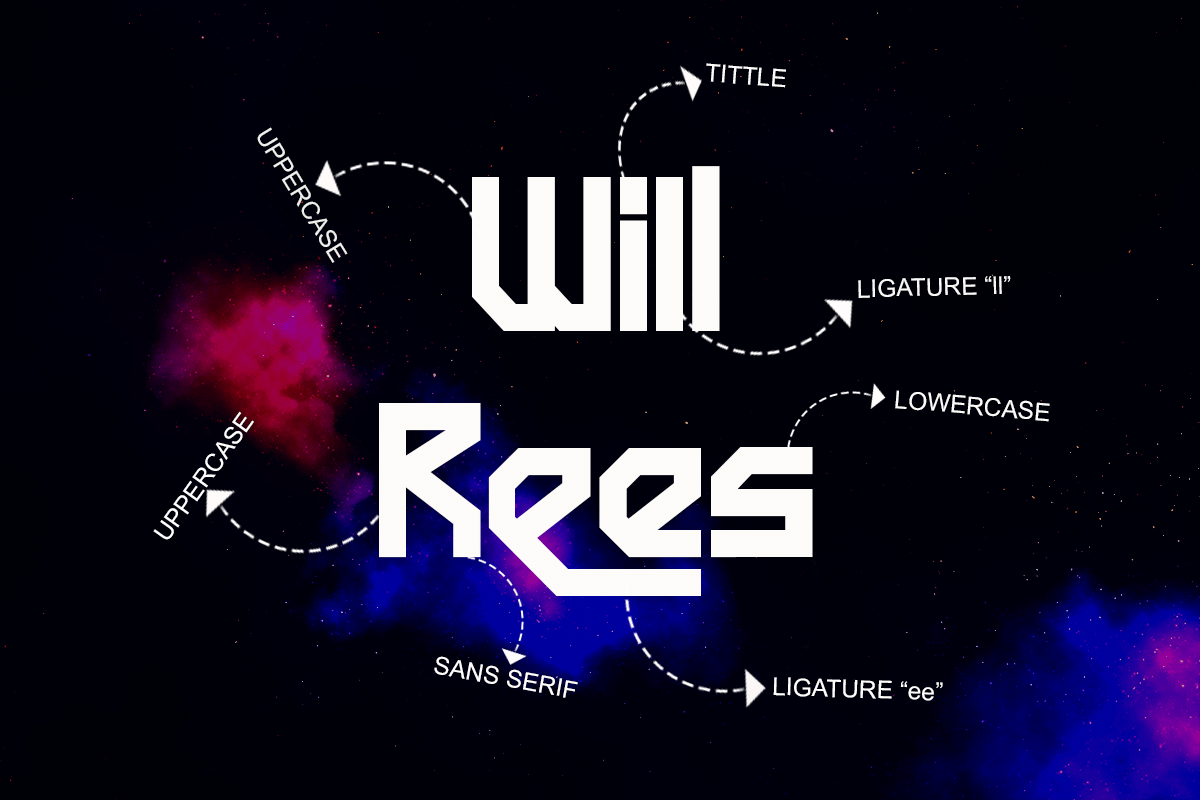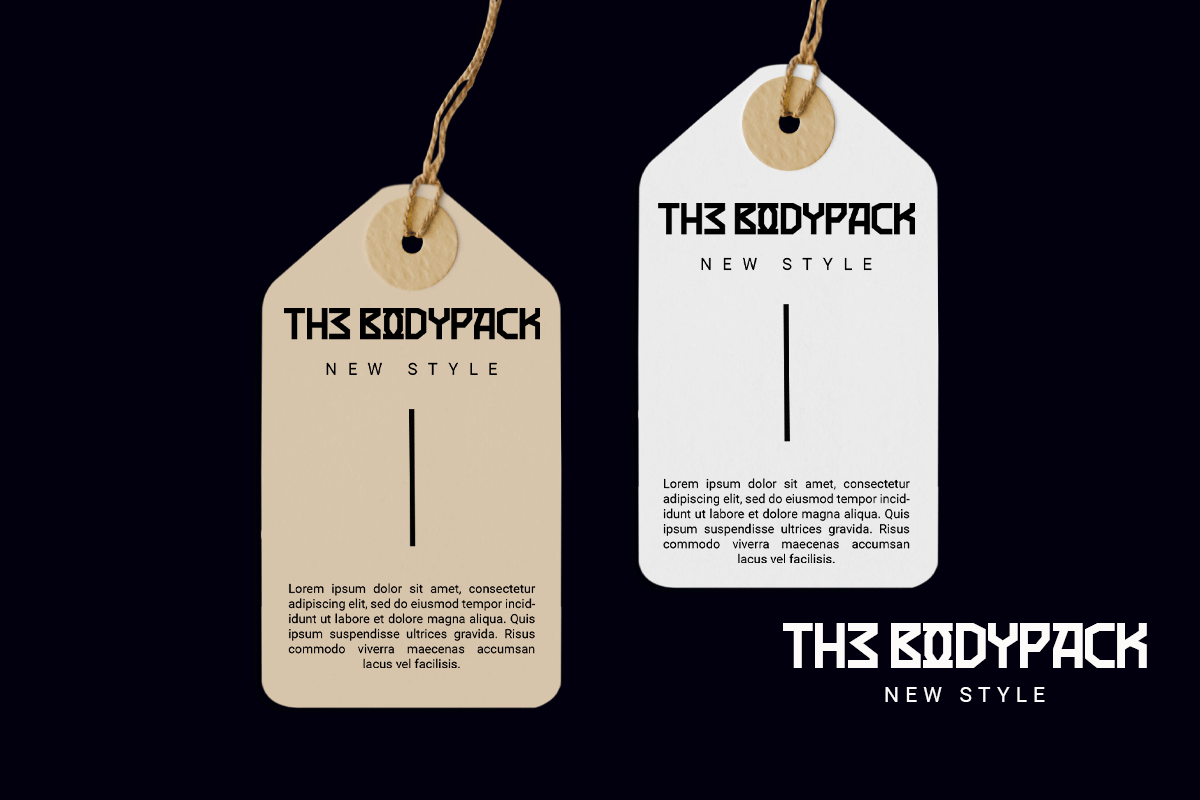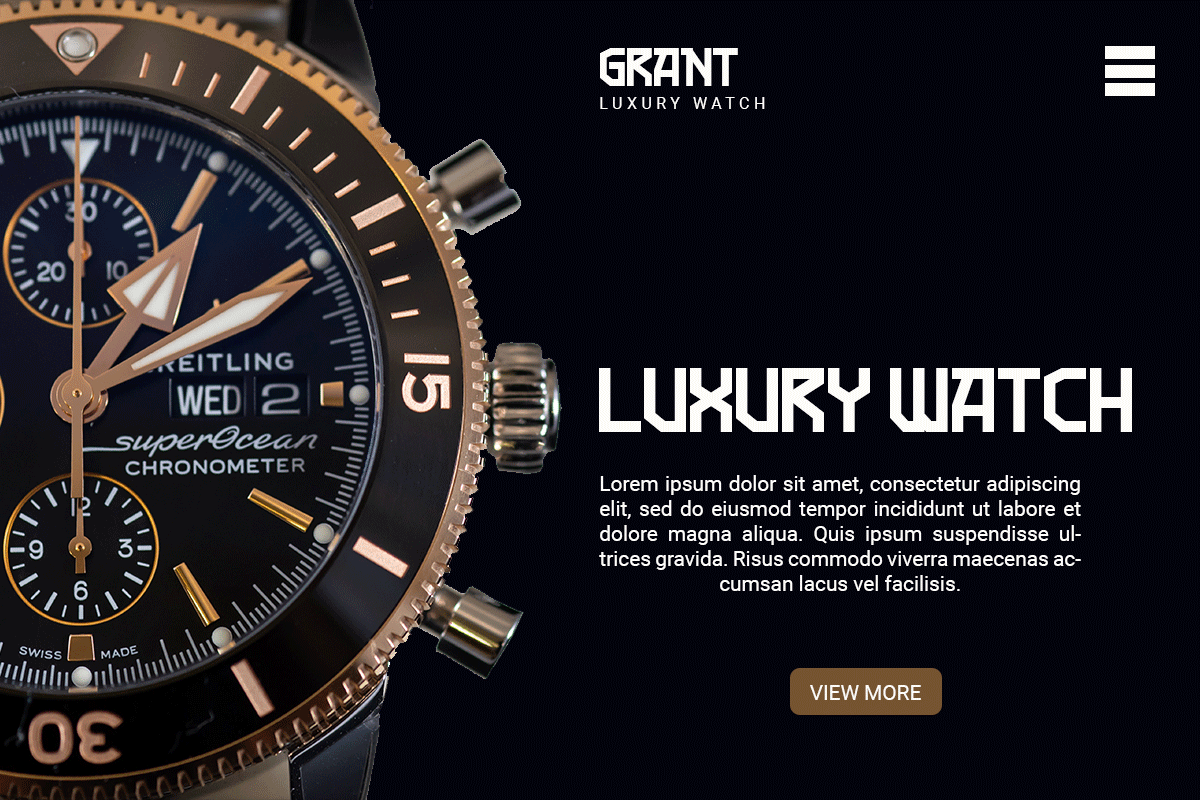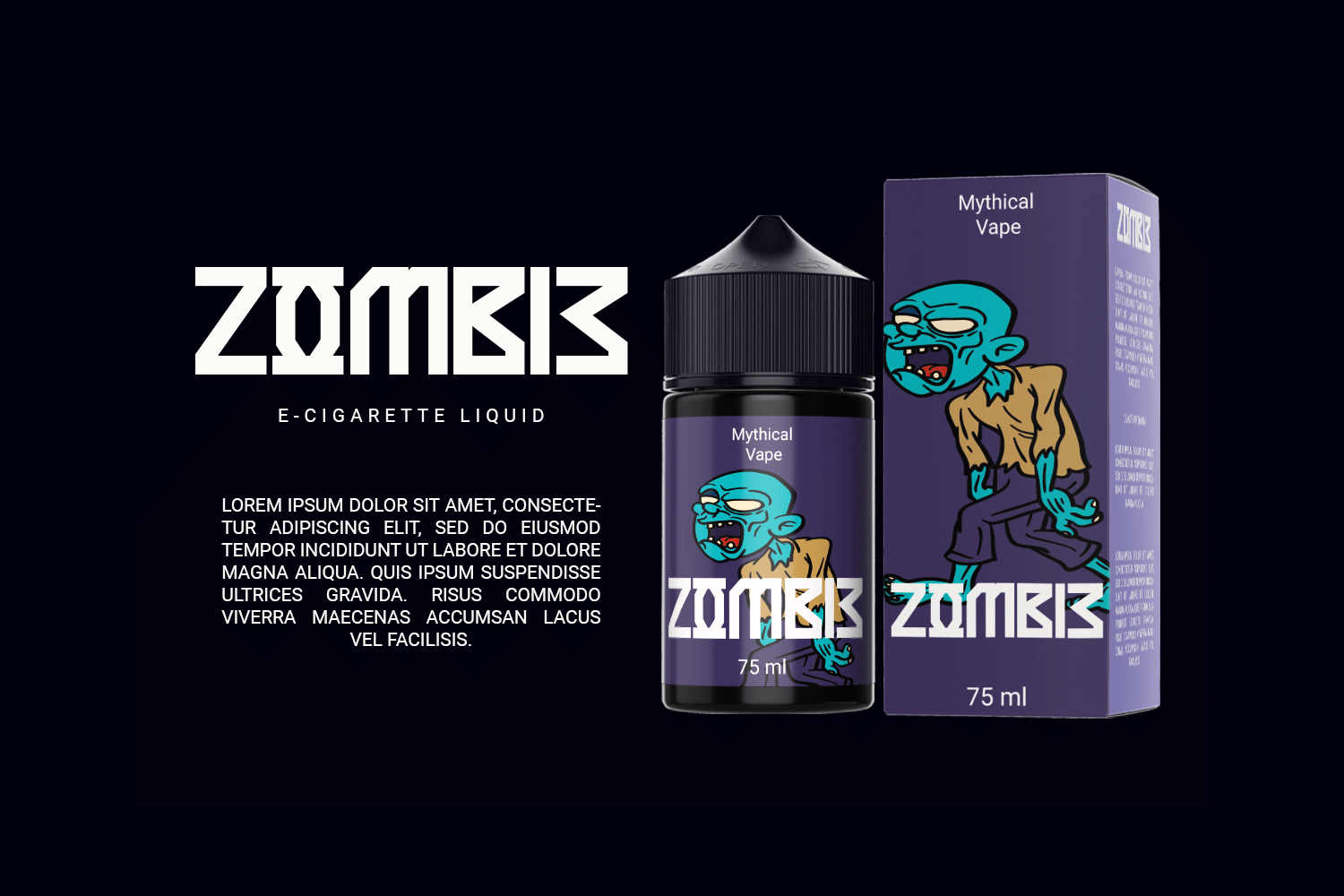
Vegano Free Font
Vegano Free Font is a bold and cool geometric styled display font that effortlessly captivates attention on posters, flyers, and prints. Embrace the striking appeal of this font and unlock its boundless possibilities in your design projects. Let your creativity soar as you utilize “Vegano” to bring a touch of uniqueness to your visual creations. This free typeface was designed by a talented Display Studio. If you like it don’t forget to check out the full version.